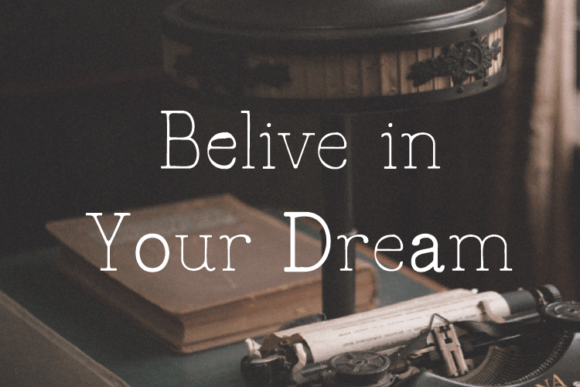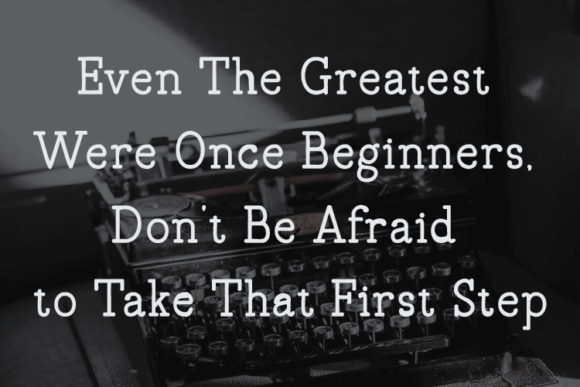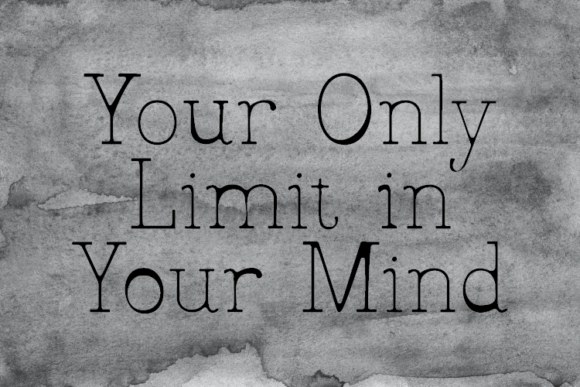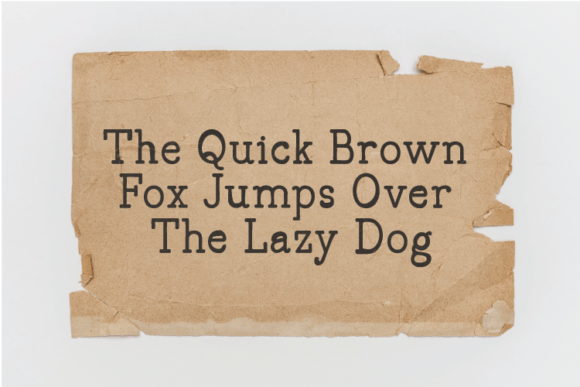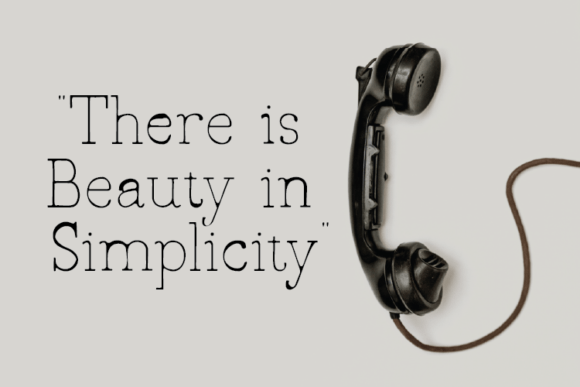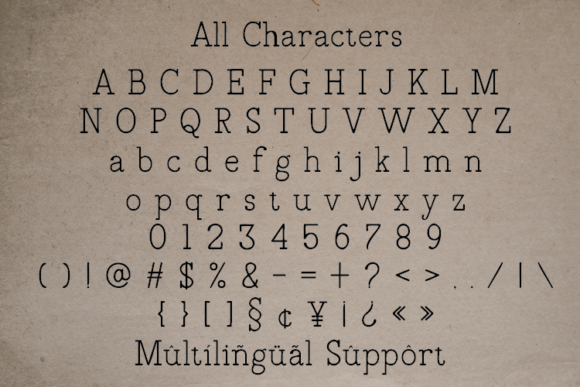
Introducing Draftside Font: A Timeless Serif Font with a Typewriter and Vintage Flair
Are you a designer or crafter looking for a font that can add a touch of nostalgia and sophistication to your creative projects? Look no further than Draftside Font, a beautifully crafted serif font that combines the classic style of a typewriter with a vintage flair. In this article, we’ll take a closer look at the features and benefits of Draftside Font, and explore how it can elevate your designs to the next level.
A Font with a Rich History
Draftside Font is a serif font that draws inspiration from the classic typewriters of the past. Its design is reminiscent of the iconic fonts used in vintage documents, letters, and manuscripts. The font’s serif style gives it a distinctive look that is both elegant and nostalgic, making it perfect for projects that require a touch of classic sophistication.
One of the standout features of Draftside Font is its PUA (Private Use Area) encoding. This means that the font includes a range of glyphs and alternates that can be accessed with ease, giving you greater flexibility and creative control over your designs. With Draftside Font, you can easily access stylistic alternates, ligatures, and other special characters to add a unique touch to your projects.
Draftside Font is an incredibly versatile font that can be used in a wide range of creative projects. Whether you’re designing a logo, creating a brochure, or crafting a handmade card, this font is sure to impress. Its classic style and vintage flair make it perfect for projects that require a touch of nostalgia, such as:
- Handmade crafts, such as card making, scrapbooking, and journaling
- Graphic design projects, such as brochures, flyers, and posters
- Digital projects, such as social media graphics, blog headers, and website designs
- Stationery and paper crafts, such as letterheads, invoices, and gift tags
Why Choose Draftside Font?
So why choose Draftside Font over other fonts? Here are just a few reasons why this font stands out:
- Unique style: Draftside Font has a distinctive style that is both classic and nostalgic, making it perfect for projects that require a touch of sophistication.
- Easy to use: The font is PUA encoded, making it easy to access glyphs and alternates.
- High-quality design: The font is designed to the highest standards, with clean lines, precise kerning, and attention to detail.
- Versatile: Draftside Font can be used in a wide range of creative projects, from handmade crafts to digital designs.
Tips for Using Draftside Font
Here are a few tips for getting the most out of Draftside Font:
- Experiment with different sizes: Draftside Font looks great in a range of sizes, from small captions to large headings.
- Pair with other fonts: Try pairing Draftside Font with other fonts to create a unique and interesting contrast.
- Use the glyphs and alternates: Take advantage of the font’s PUA encoding to add a touch of personality to your designs.
| Font Name | Draftside Font |
| Author | Rvandtype |
Draftside Font is a timeless serif font that combines the classic style of a typewriter with a vintage flair. Its PUA encoding makes it easy to access glyphs and alternates, giving you greater creative control over your designs. Whether you’re a designer or crafter, Draftside Font is a great choice for projects that require a touch of nostalgia and sophistication. So why not give it a try and see the fantastic results for yourself?